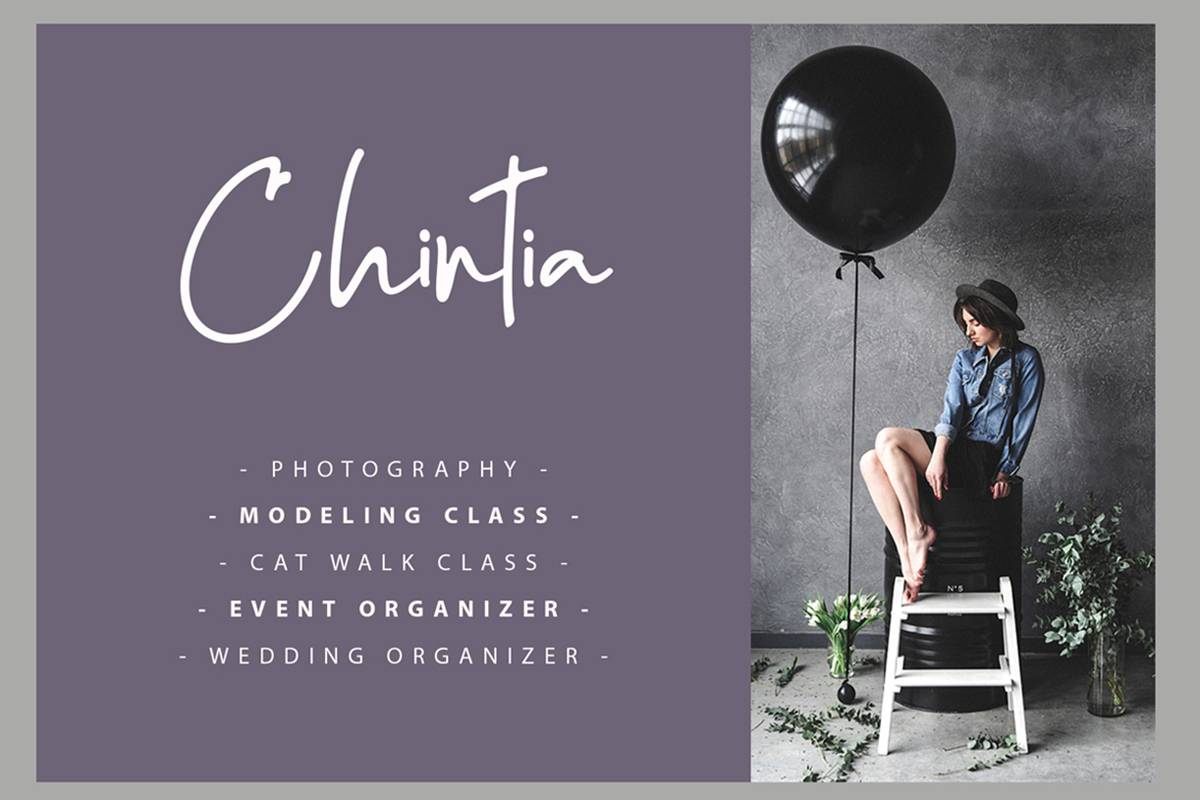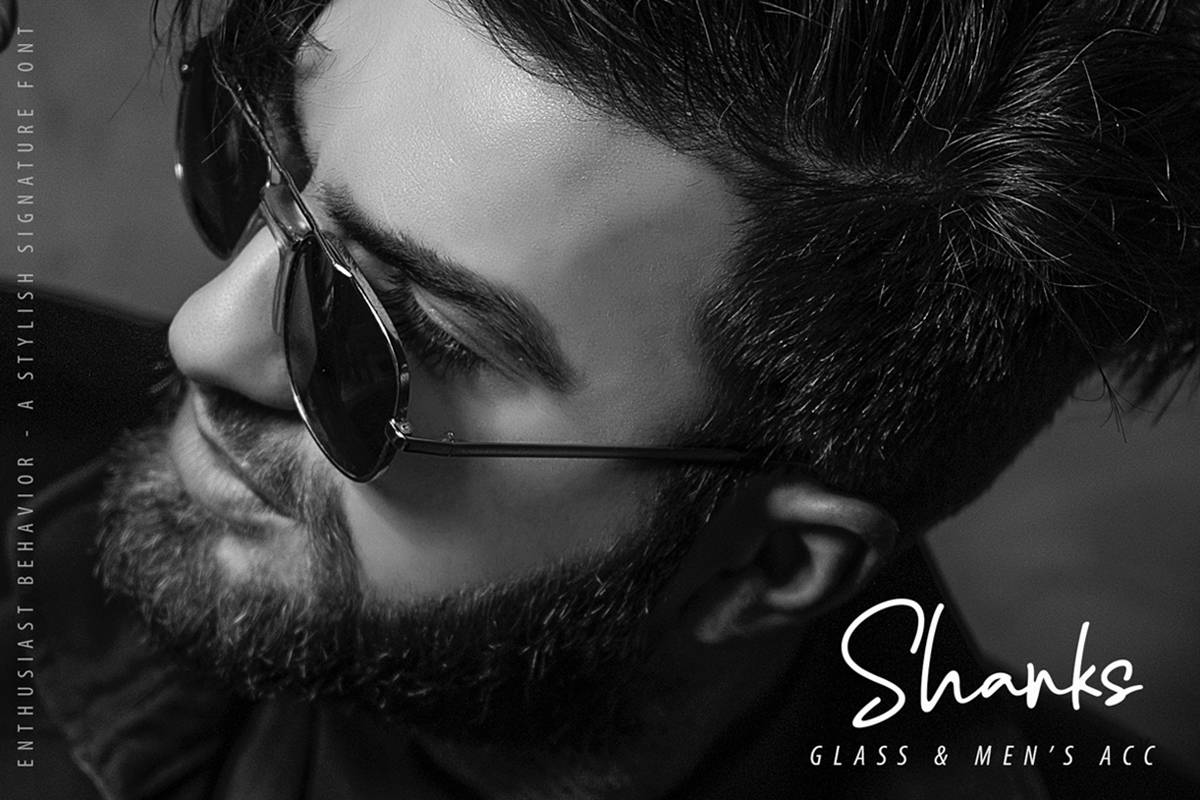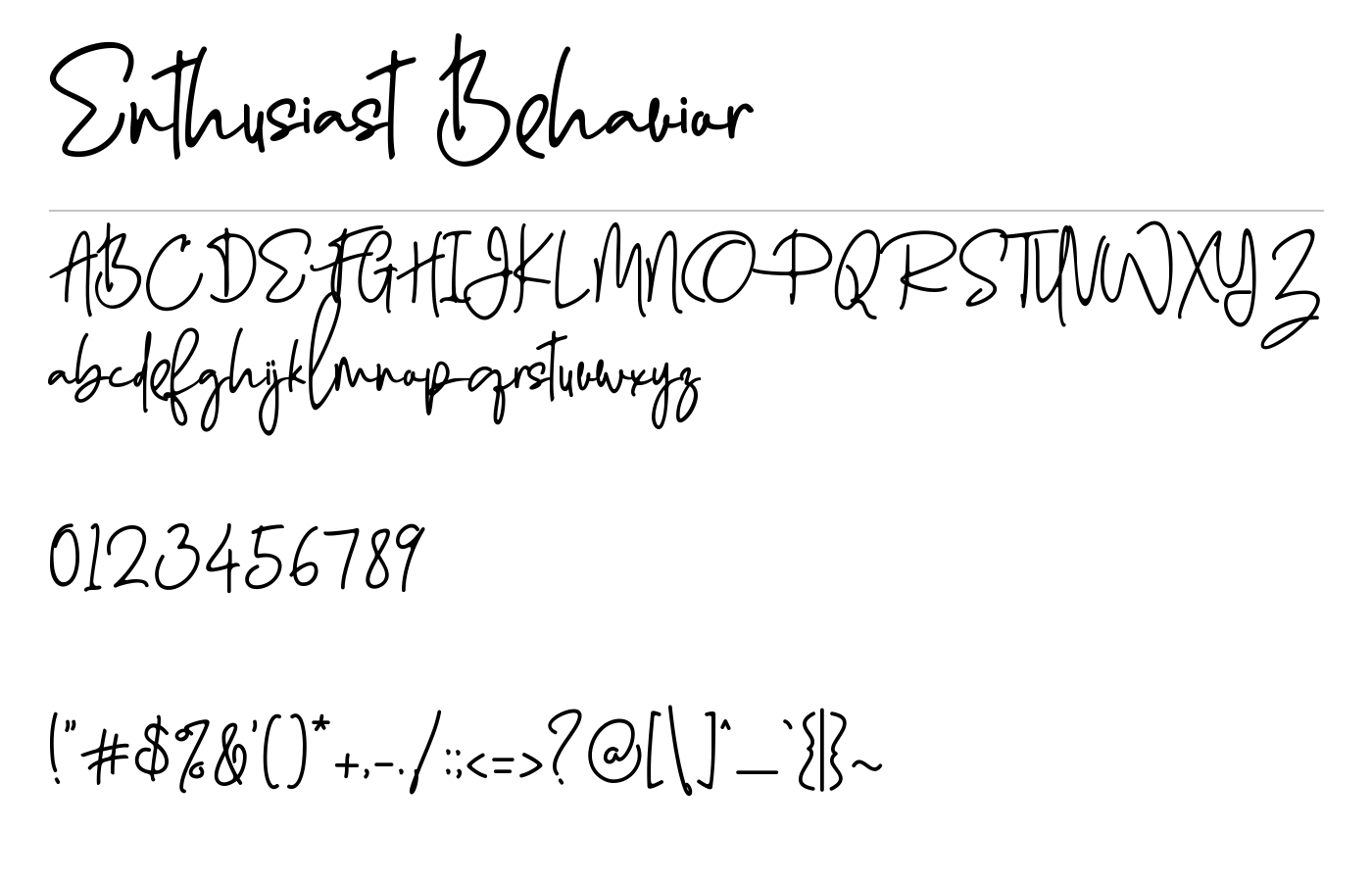
Enthusiast Behavior is a lively and energetic handwritten script font with a casual, playful vibe. Its tall, narrow letterforms and varied stroke widths create a dynamic, personal feel, making it perfect for informal branding, creative projects, and designs that want to convey friendliness and spontaneity. This font works well for logos, invitations, and social media graphics where a unique, expressive handwritten touch is desired.
Enthusiast Behavior Font
About Enthusiast Behavior Font
| Font family | Enthusiast Behavior Font |
| Release date | 2019-02-04 |
| Designer | Aldedesign 2019 |